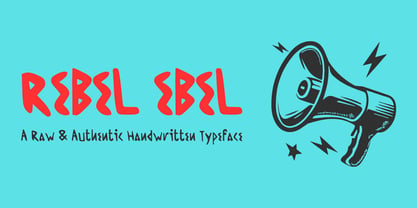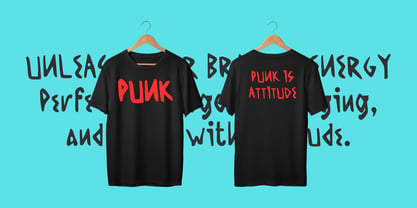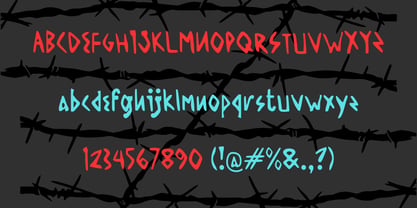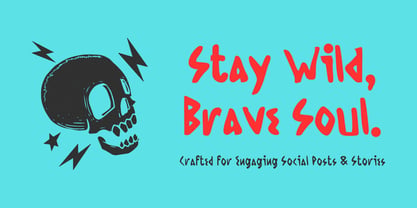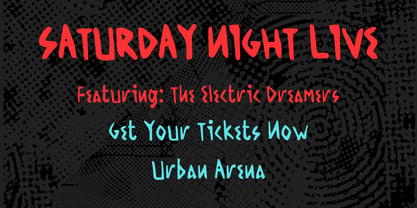
Rebel Ebel
Unleash raw energy and playful authenticity with Rebel Ebel, a captivating handwritten typeface designed to give your creative projects an effortless, personal touch. Built with dynamic brush strokes and natural line variations, Rebel Ebel strikes the perfect balance between rebellious charm and versatile readability.
Design Concept & Inspiration
Rebel Ebel was crafted to capture the spontaneous spirit of modern street art, personal journal entries, and casual handwriting. Its organic curves and expressive rhythm bring a human touch to digital designs, making your work feel approachable, energetic, and uniquely authentic.
Ideal Design Uses
Rebel Ebel shines across a wide range of creative applications:
- Branding & Identity: Perfect for modern lifestyle brands, indie cosmetics, streetwear labels, and creative agencies.
- Packaging Design: Adds a custom, artisanal feel to product packaging, food labels, and coffee pouches.
- Social Media & Quotes: Ideal for eye-catching Instagram posts, Pinterest quotes, YouTube thumbnails, and digital graphics.
- Merch & Apparel: Outstanding choice for graphic t-shirts, hoodies, tote bags, and event merchandise.
- Editorial & Posters: Great for event flyers, music album covers, book titles, and casual banner headlines.
Key Features & Pairing Suggestions
- Natural Handwriting Flow: Crafted with careful attention to spacing and kerning for a smooth visual rhythm.
- Versatile Character Set: Includes uppercase, lowercase, numbers, punctuation, and essential symbols.
- Excellent Font Pairing: Rebel Ebel pairs exceptionally well with clean, minimalist Sans-Serif fonts (like Montserrat or Helvetica) for secondary body text, creating a stylish contrast between raw hand-drawn headlines and structured information.
Stand out from the crowd and bring your designs to life with the bold, friendly, and expressive character of Rebel Ebel!